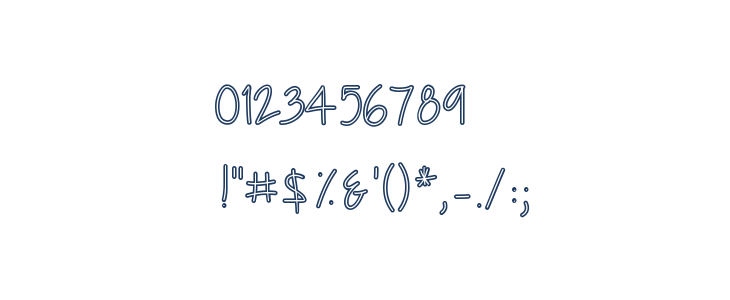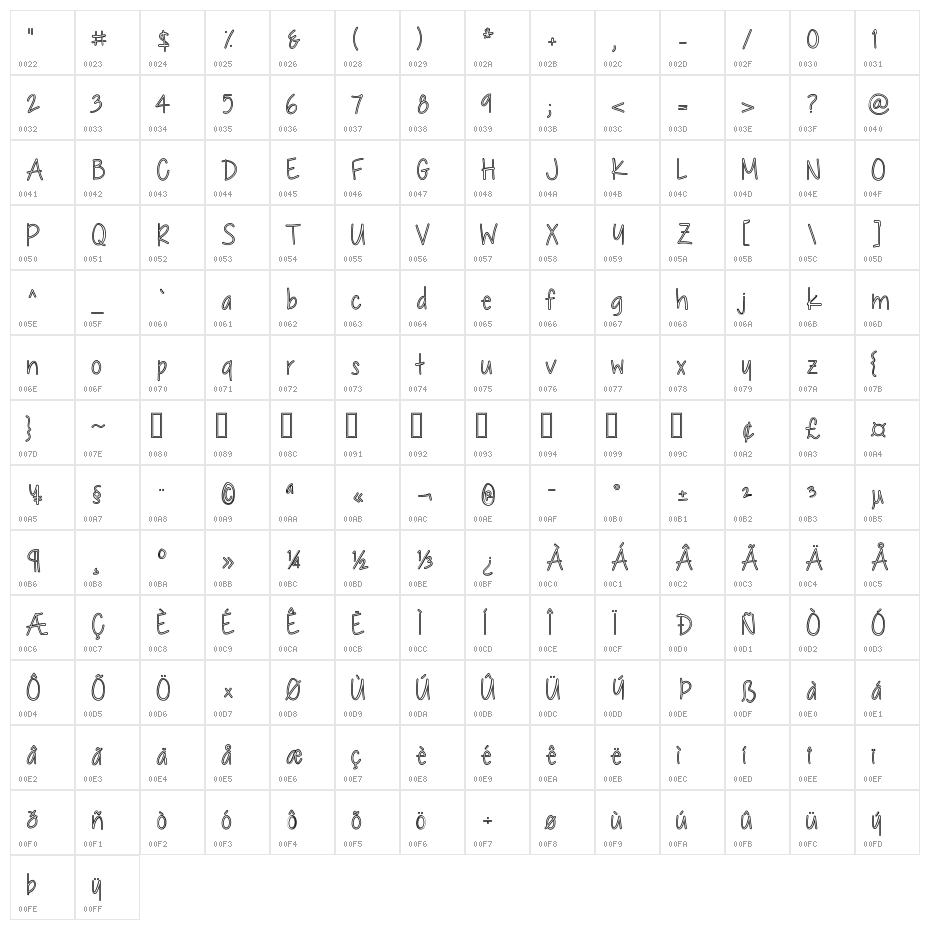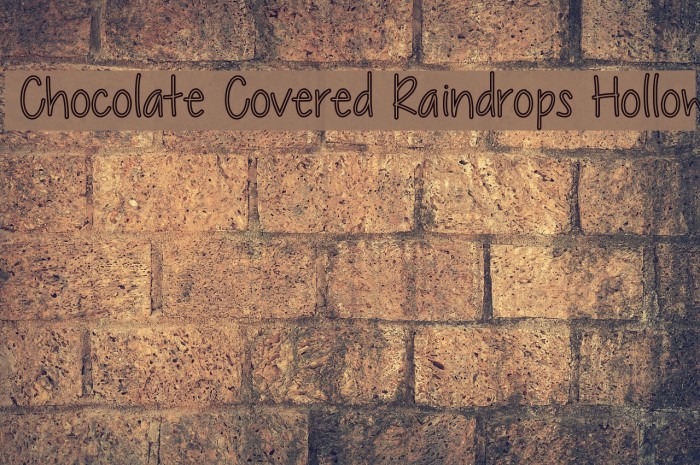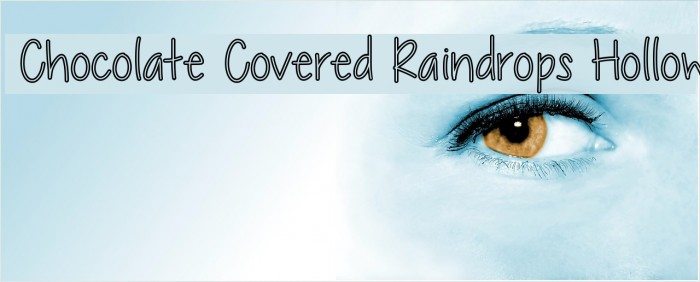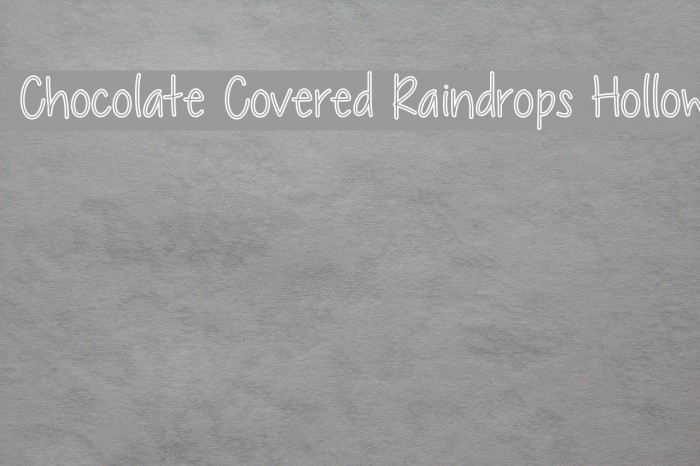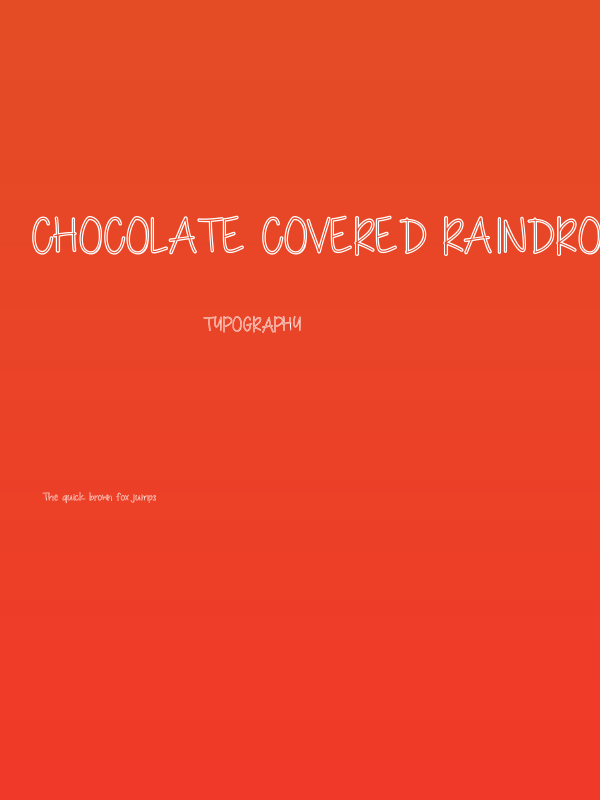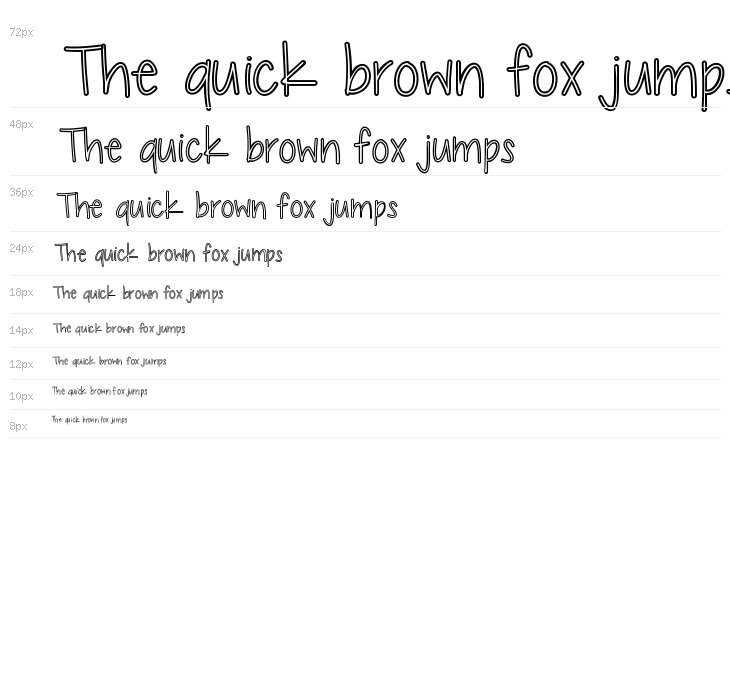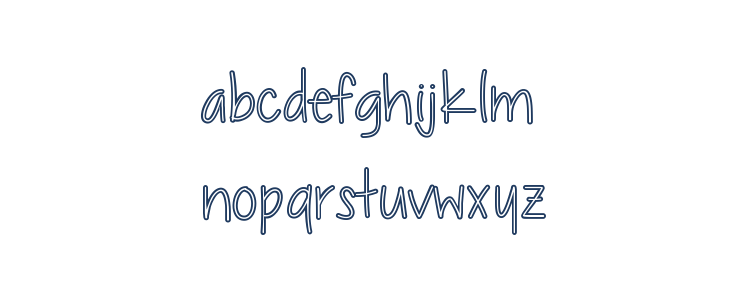
Chocolate Covered Raindrops Hollow Font
Chocolate Covered Raindrops Hollow Description
This playful and whimsical font features hollow, hand-drawn characters with a casual and friendly appearance. The letters are outlined, giving them a unique, airy feel that adds a touch of creativity and fun. The strokes are consistent in width, providing a uniform look across all characters. The font maintains a balance between being informal and legible, making it suitable for various creative projects. Its distinctive style can capture attention and convey a sense of lightheartedness and approachability.
| Overall Style | Whimsical |
| Proposed Projects | Ideal for children's books, playful branding, greeting cards, and creative posters. |